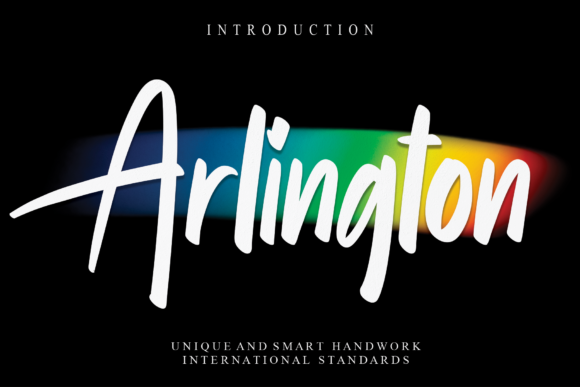
Step into the world of Arlington Font, where elegance and charm intertwine to create a masterpiece of typography. This enchanting script font, designed by the talented Misterletter.co, is a tribute to the timeless beauty of handwritten signatures.
Arlington Font is not just a font; it's an experience. It's a journey into the realm of creativity, where imagination knows no bounds. Whether you're a designer, a blogger, or simply someone who appreciates the art of typography, Arlington Font will captivate you with its allure.
With its sweeping curves, delicate strokes, and playful alternates, Arlington Font exudes a warmth and romance that will transform your projects into works of art. It's a font that speaks to the heart, evoking emotions and creating a lasting impression.
Picture this: a wedding invitation adorned with the graceful lines of Arlington Font, conveying the love and joy of the special day. A heartfelt letter, penned with the elegance of Arlington Font, expressing sentiments that words alone cannot capture. Or a social media post, infused with personality and charm, thanks to the artistry of Arlington Font.
The possibilities are endless. Arlington Font is the perfect choice for logos, branding, social media, crafting, and any project that calls for a touch of sophistication and charm. It's a font that will make your designs shine, leaving a lasting impression on your audience.
So embrace the beauty of Arlington Font and embark on a creative journey like never before. Let your imagination soar, let your words flow, and let Arlington Font be your guide to creating masterpieces that will inspire and delight.